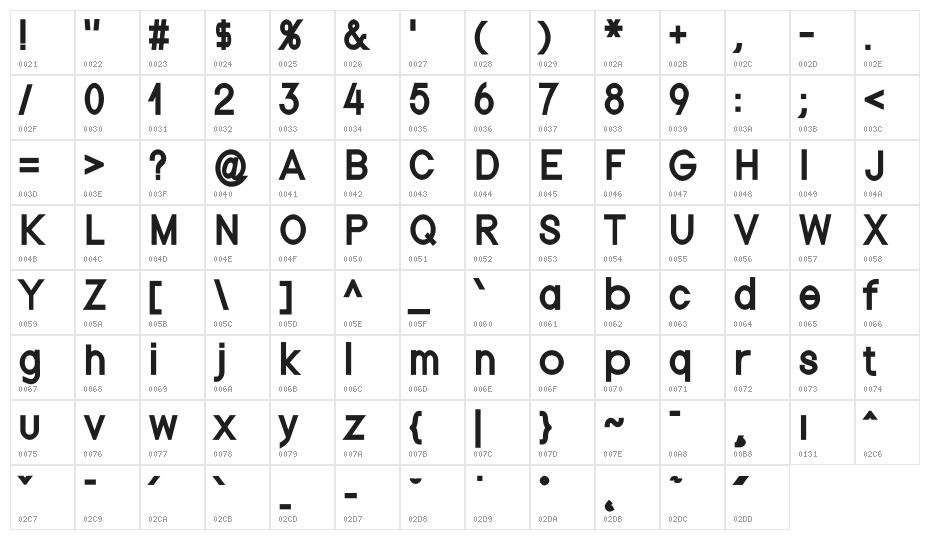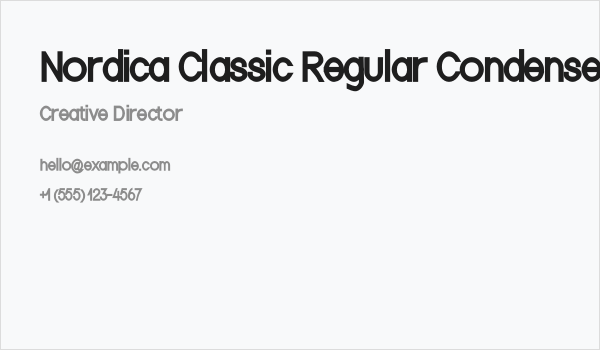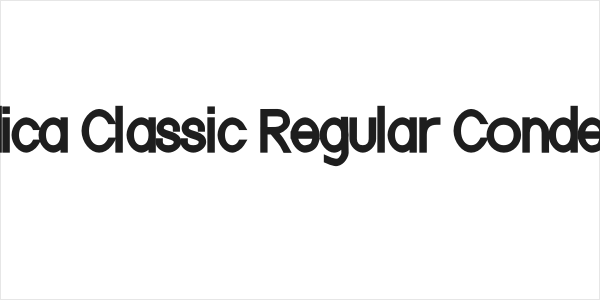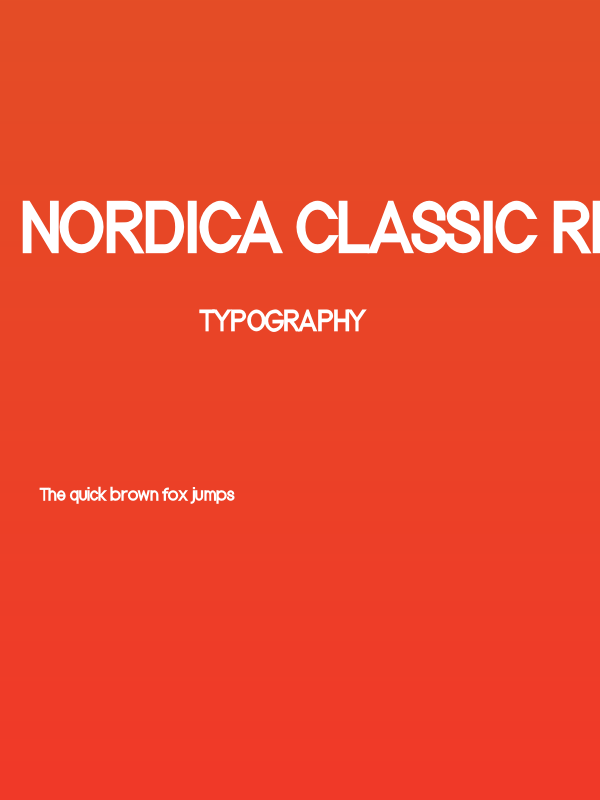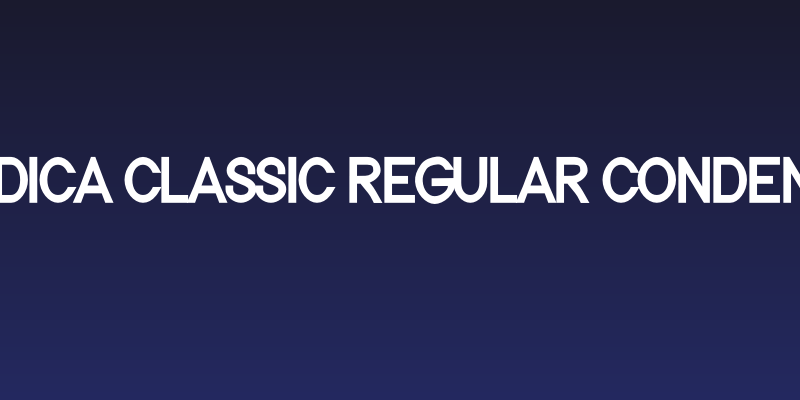
Nordica Classic Regular Condensed Font
Nordica Classic Regular Condensed Description
This font presents a clean and modern aesthetic with a sans-serif style. The characters are uniformly designed with a consistent stroke width, contributing to a balanced and harmonious appearance. The uppercase and lowercase letters maintain a geometric structure, enhancing readability and visual appeal. The numerals are clear and distinct, making them suitable for various applications. Special characters are well-integrated, ensuring versatility in design projects. The condensed width allows for efficient use of space, making it ideal for headlines and titles where space is limited.
| Use Case | Headlines, Logos, Editorial Design |
| Proposed Projects | Ideal for branding, editorial design, advertising, and web design projects. |